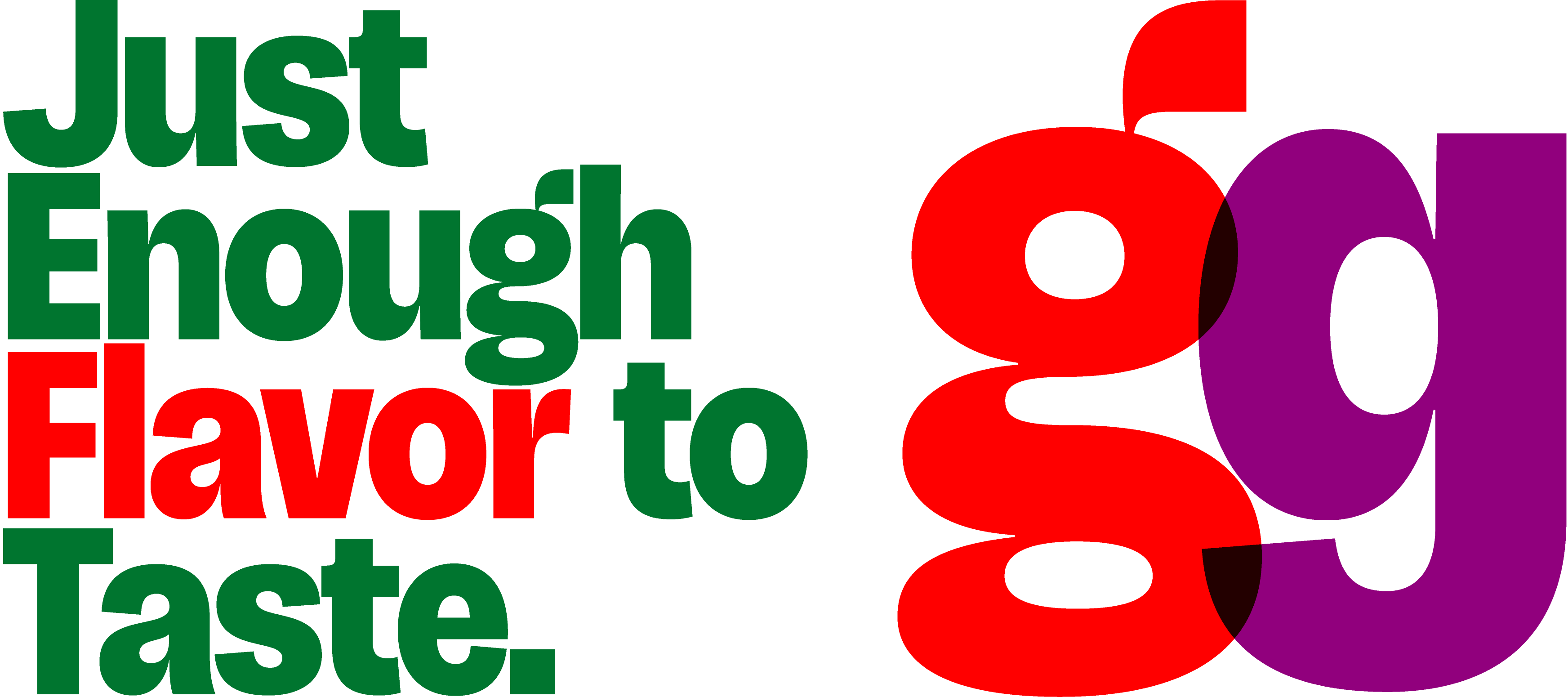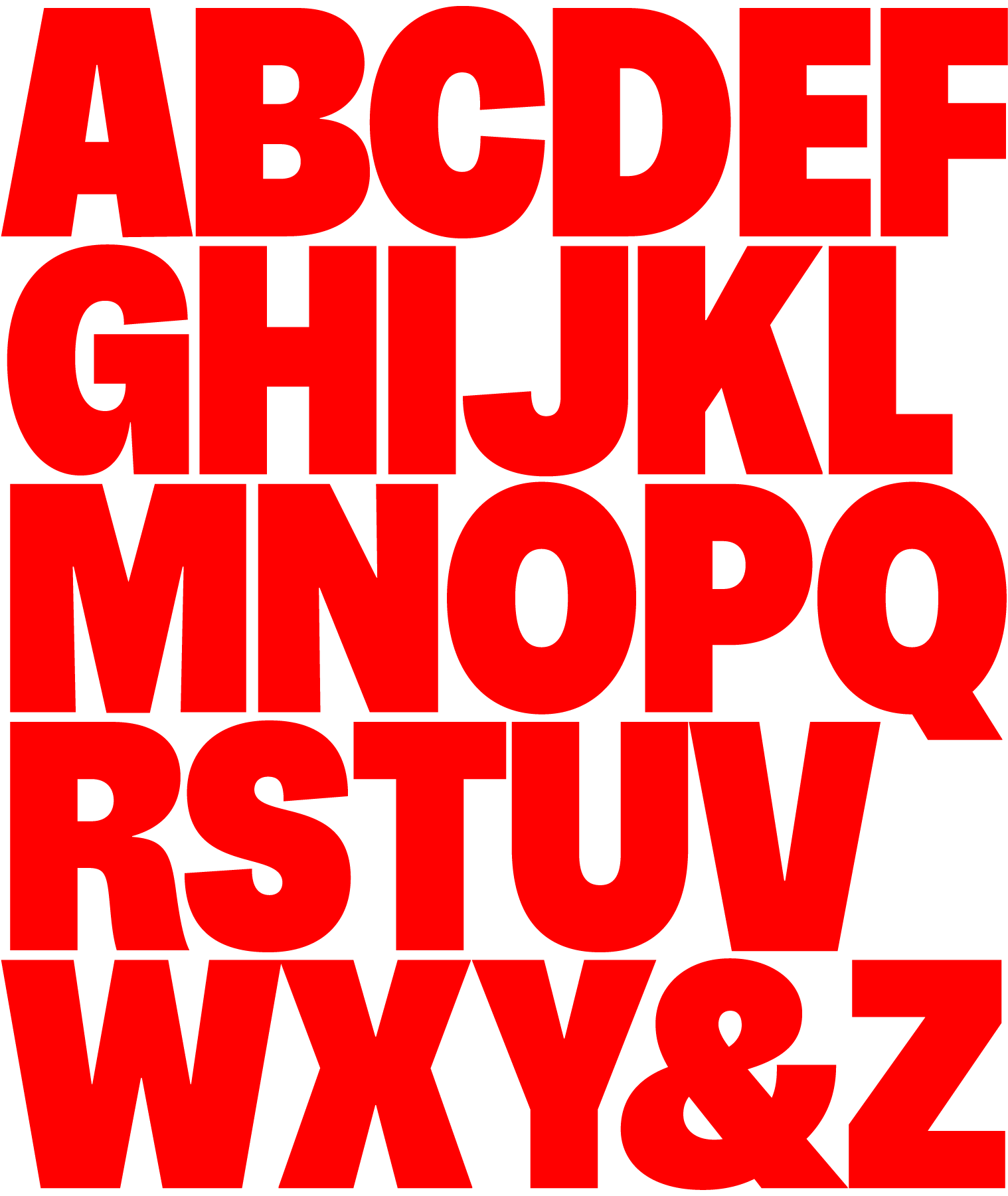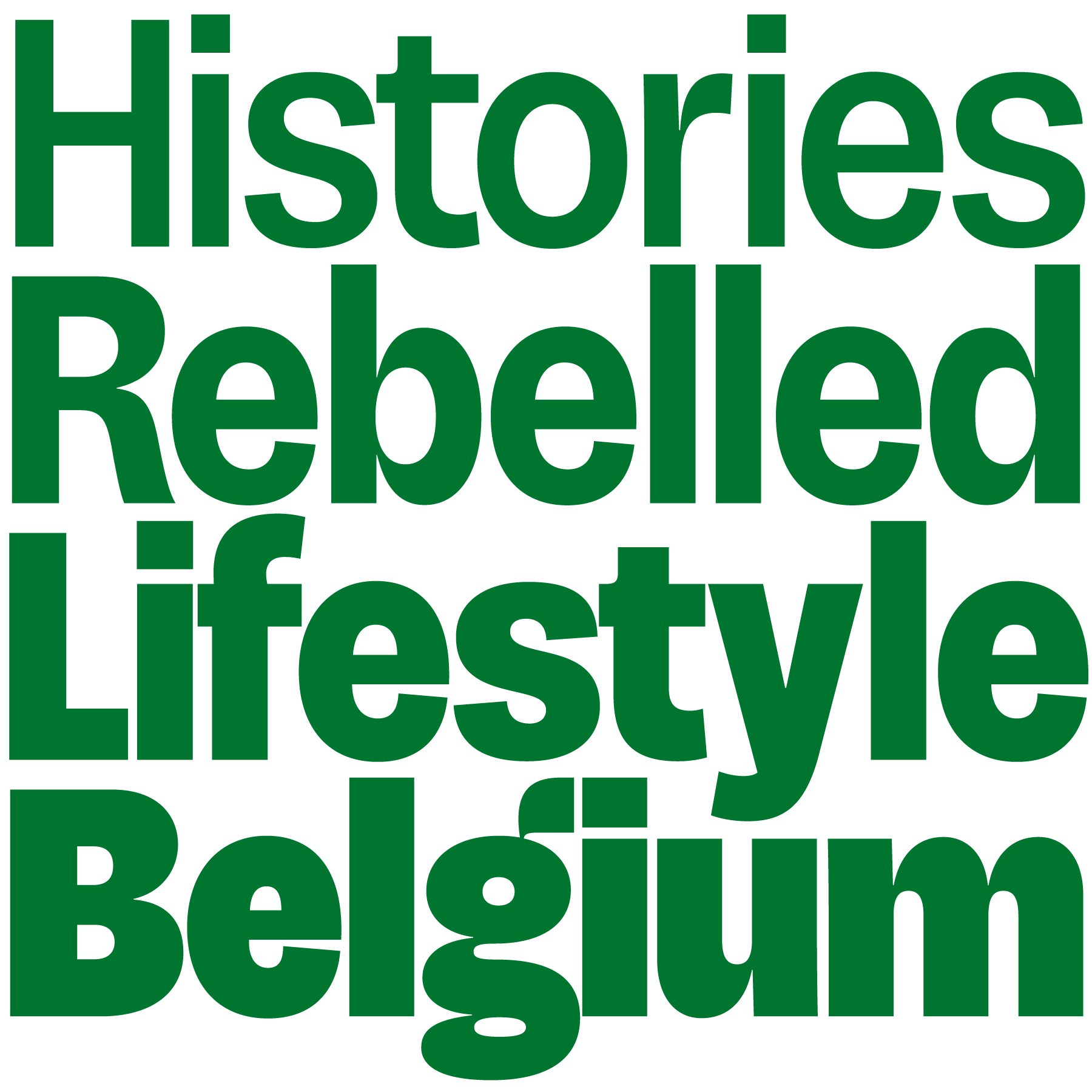
A foray into the well trodden world of the grotesque sans-serif, Cognate speaks a familiar language with its own distinct cadence: succinct, confident, and self aware.
Although its DNA feels familiar, Cognate is not a revival of any particular typeface. Instead, it is a summation of a genre: the grotesques that encapsulated the Swiss or “International” Typographic Style of the 19th century, such as Akzidenz-Grotesk and, you guessed it, Helvetica.
Rather than taking big swings in the style department, Cognate relies on more nuanced details. Smooth branching, a high x-height, slightly narrow proportions for economic typesetting, and just enough flavor to taste. A balance of precision and personality, Cognate channels a similar sense of order and utility to its predecessors, while reintroducing a feeling of humanity often missing in more geometric grotesques. Rationalism with a twinkle in its eye.
In a time where design trends come and go every week, Cognate is a sans for today, tomorrow, and maybe even next month.